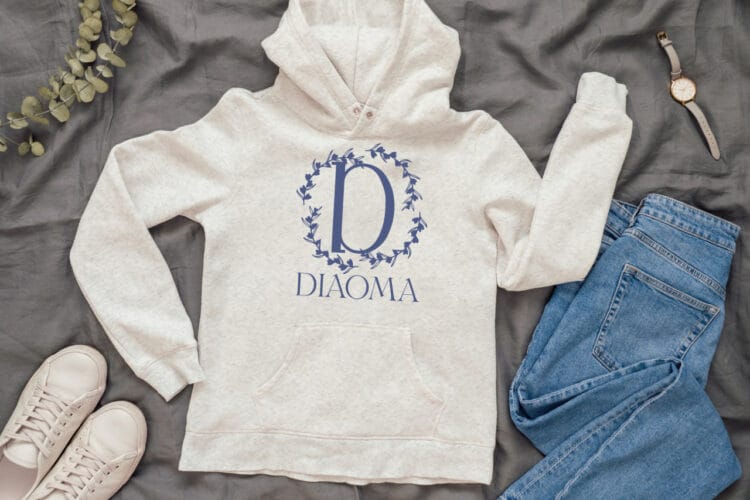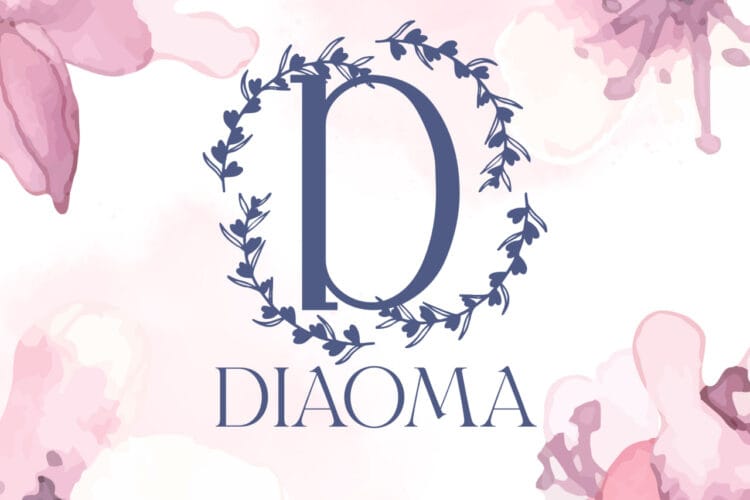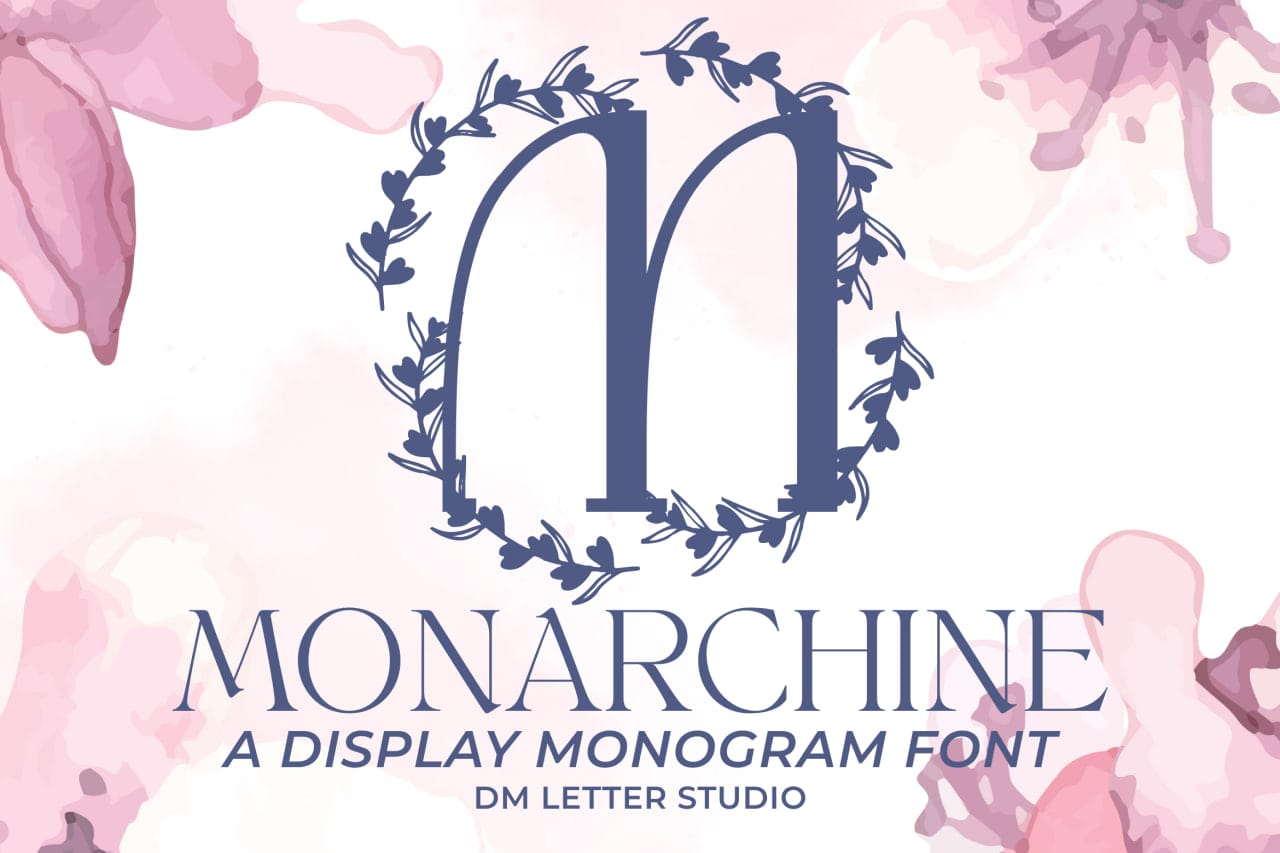
Meet Monarchine, the Monogram Font
Monarchine Monogram Font turns simple initials into regal emblems with modern clarity. Strokes feel confident and smooth. Counters stay open, so tiny tags, wax seals, and thumbnails read clean. Use it for wedding suites, boutique logos, premium packaging, keepsake gifts, and signage. Moreover, Monarchine pairs beautifully with refined serifs and quiet humanist sans fonts, so your layouts feel elegant without extra effort.
Where this monogram font shines
Set single, double, or triple initials for logos, seals, menus, and place cards. Then frame them with laurel rings, oval borders, fine rules, or filigree to echo the poised geometry. Since proportions favor symmetry, centered compositions come together in minutes. As a result, listings look consistent across invitations, boxes, tags, and acrylic signs. Plus, Monarchine scales smoothly from jewelry cards to entry signage.
Design tips for Monarchine Monogram
Keep initials large and let white space breathe. Then, pair the headline monogram with a soft serif for body text or a clean sans for labels. Add micro shadows, a fine inner stroke, or a delicate frame to create depth. Because the letterforms feel airy, textured stocks and metallic accents raise perceived value. However, keep wording short so the monogram remains the hero.
Select stylistic alternates for key letters
Curves tuned for foil, letterpress, engraving, laser, and clean vinyl cutting
Why creators choose this monogram font
You want elegance that reads at a glance and sells. Monarchine delivers. It grabs attention in thumbnails, speeds layout, and keeps brand voice cohesive from invites to packaging and gifts.